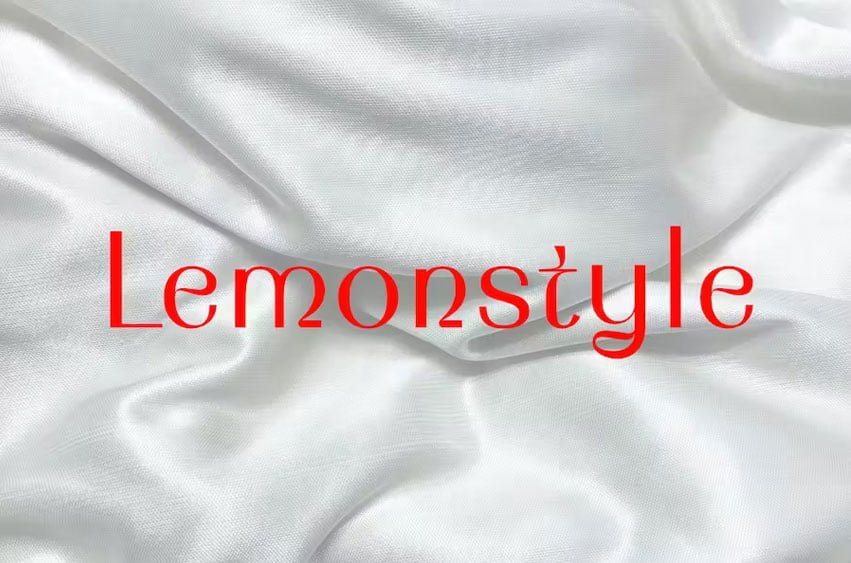
Lemonstyle Font is an exquisite sans-serif font with unexpected twists and accents to create a unique appearance. This typeface is perfect for high-end beauty products or anything fashion-related.